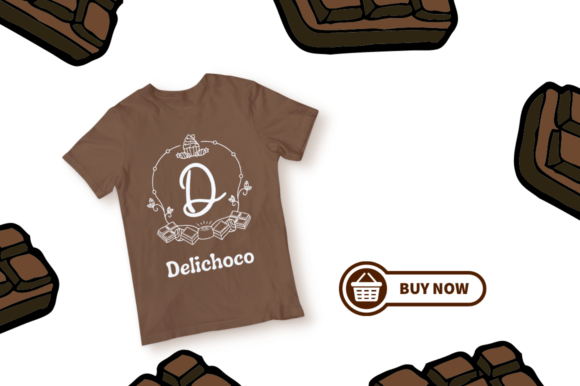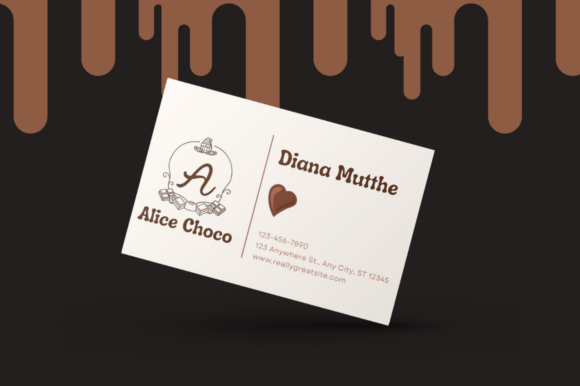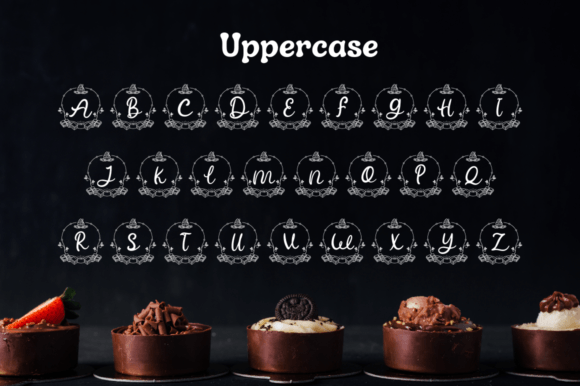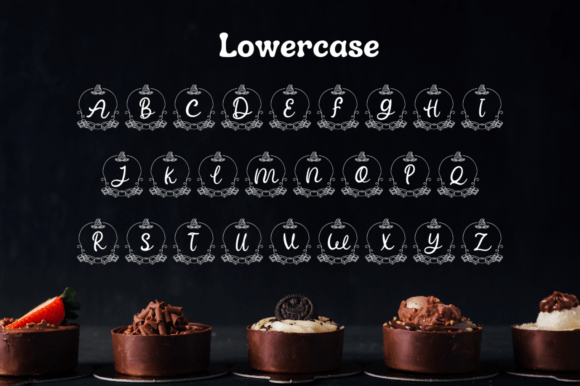
Indulge in the Sweetness of Design with Chomono Monogram Font
Do you ever get that creative spark when you’re surrounded by something as simple as a box of chocolates or a colorful candy store? For designers, those moments of inspiration can be the key to unlocking a new project or idea. And what’s sweeter than combining those feelings with the art of typography?
Meet the Chomono Monogram Font, a delightful and whimsical font designed specifically for those who love all things chocolate and candy. This font is perfect for adding a touch of sweetness to your designs, whether it’s a special occasion, a business logo, or a social media post. With the Chomono Monogram Font, you can create custom monograms that are as unique as they are adorable.
As a designer, you know how valuable it is to have the right tools at your fingertips. The Chomono Monogram Font is a game-changer for anyone looking to add a personal touch to their designs. Its versatility and charm make it an essential addition to any design arsenal.
Chomono Monogram Font Key Features
- Unique Characteristics: Hand-drawn monogram style with intricate details and ornate flourishes
- Number of Glyphs: 30+ customizable monogram designs and 100+ additional glyphs
- Font Style: Script, Calligraphy, Ornate
Chomono Monogram Font Review
First off, I’d like to say that I’m quite impressed with the unique style of the Chomono Monogram Font. The monogram-inspired design adds a touch of elegance to any text. ✨ The font’s bold lines and ornate details make it perfect for titles, logos, or headings that need a bit of flair.
One of the things that stands out about Chomono Monogram Font is its versatility. ✨ It comes in a range of weights and styles, from light to bold, and even a few script variations. This makes it easy to find the perfect version to match your design needs.
While Chomono Monogram Font is a great choice for many projects, there are a few limitations to be aware of.
- ⚠️ The font may not be suitable for body text, as it can be quite busy and overwhelming when used in large quantities.
- ⚠️ Some users may find the font’s ornate details to be too distracting or over-the-top, depending on the design style.
- ⚠️ The font’s uniqueness can also make it difficult to pair with other fonts, so you may need to be careful when choosing complementary fonts.
Overall, I’d say that Chomono Monogram Font is a great choice for designers who want to add a touch of luxury and sophistication to their designs. With a bit of creativity and careful planning, it can be a real showstopper. Just be sure to use it wisely and in moderation.
Tips for Getting the Most Out of Chomono Monogram Font
Here are some tips to help you get the most out of Chomono Monogram Font:
- Experiment with different font sizes and colors to create visually appealing combinations.
- Use Chomono Monogram Font to create monogrammed initials or logos for personal or professional use.
- Combine Chomono Monogram Font with other fonts to create unique and eye-catching designs.
Chomono Monogram Font is commonly used in:
- Wedding invitations and stationery. Alternatives to Chomono Monogram Font for Designers
- Use a contrasting color for the monogram to make it stand out.
- Add a pattern or texture to the background to give the coasters a unique look.
- Use a combination of uppercase and lowercase letters to create a visually interesting design.
- Use a watercolor effect or a hand-painted look to give the invitation a personal touch.
- Add a custom illustration or a photo to make the invitation more unique.